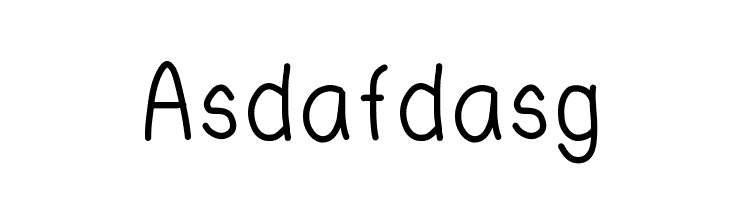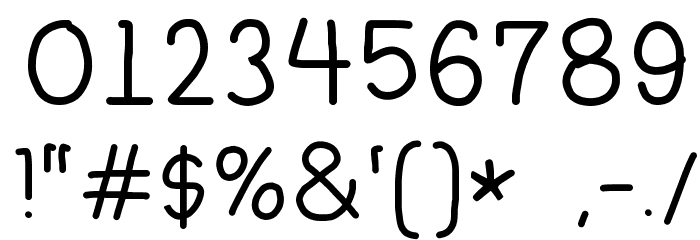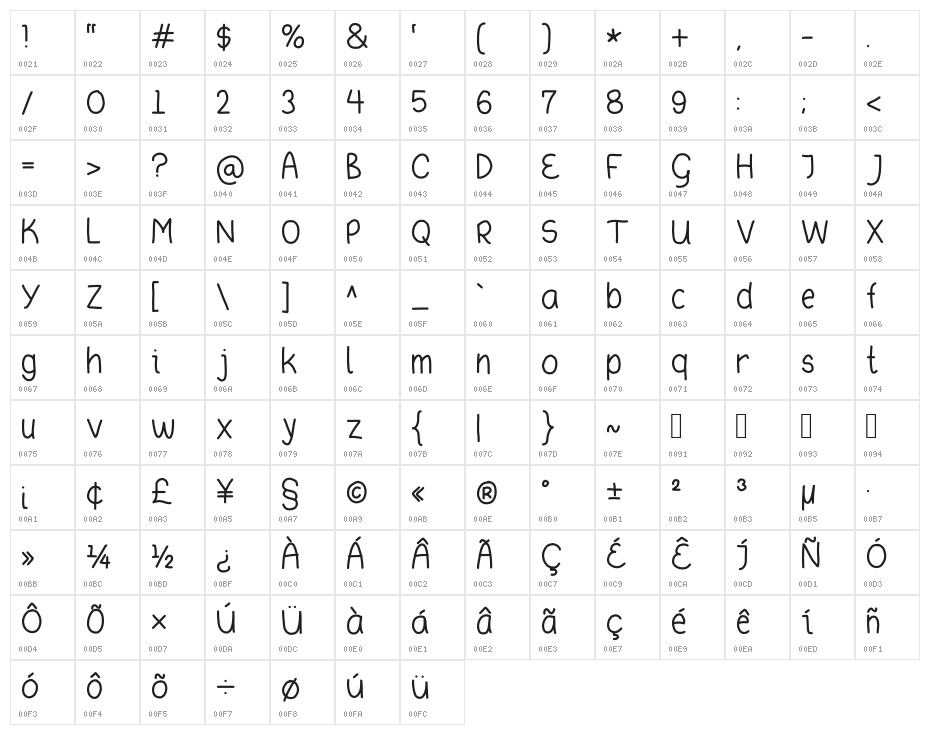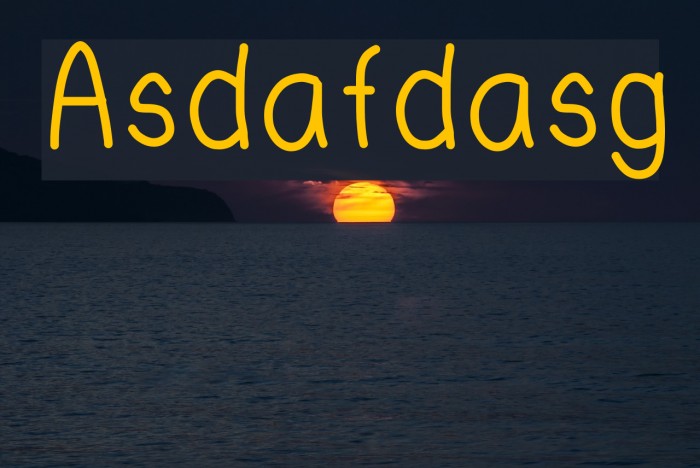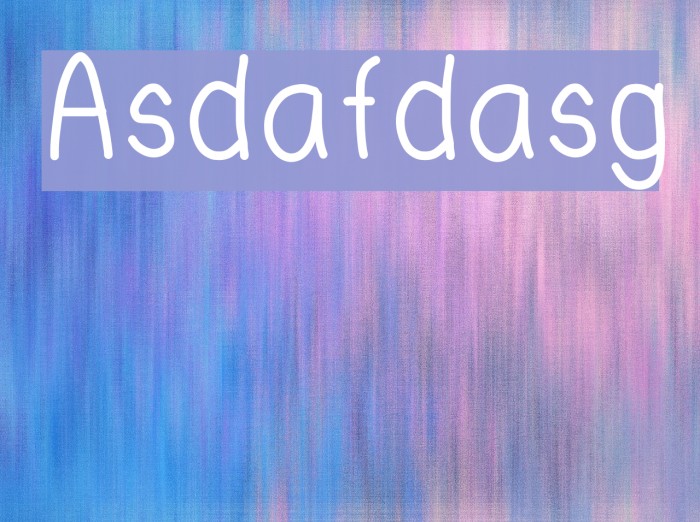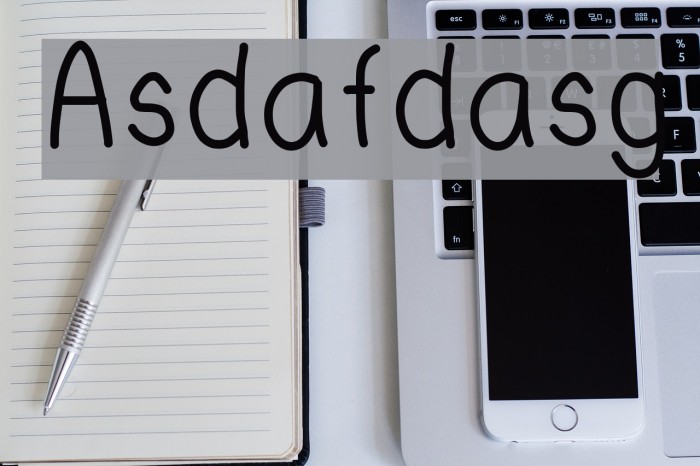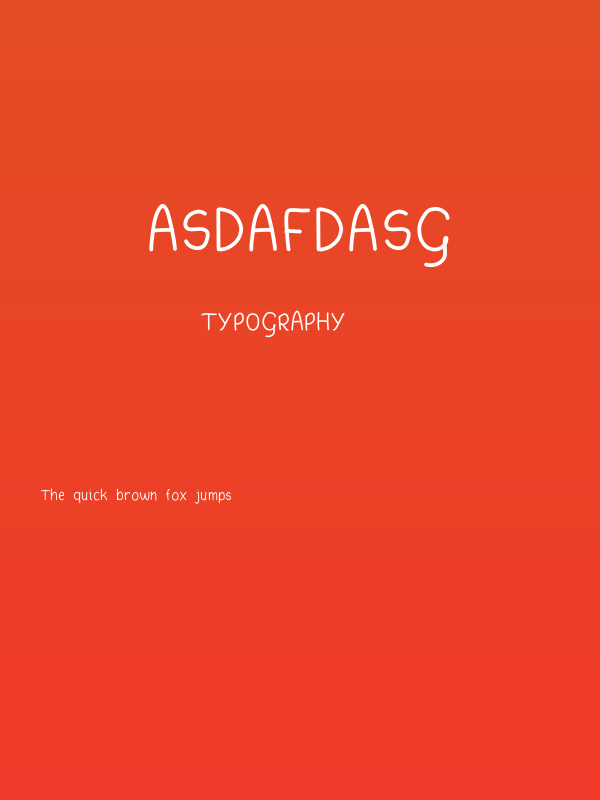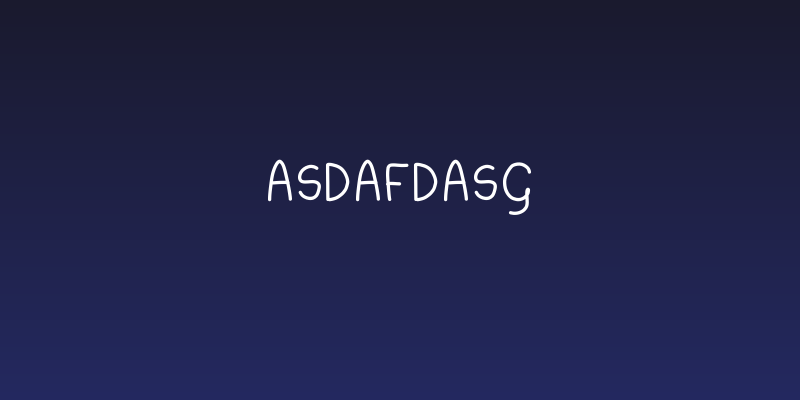
Asdafdasg Font
Asdafdasg Description
This font features a playful and informal style with rounded edges and a handwritten appearance. The characters are slightly irregular, giving it a casual and friendly look. The uppercase letters are tall and narrow, while the lowercase letters maintain a consistent height, contributing to its approachable feel. The numerals are clear and legible, matching the overall aesthetic. Special characters are included, maintaining the same whimsical style. This font is suitable for projects that require a personal touch or a relaxed vibe.
| Proposed Projects | Ideal for children's books, greeting cards, informal invitations, and playful branding. |